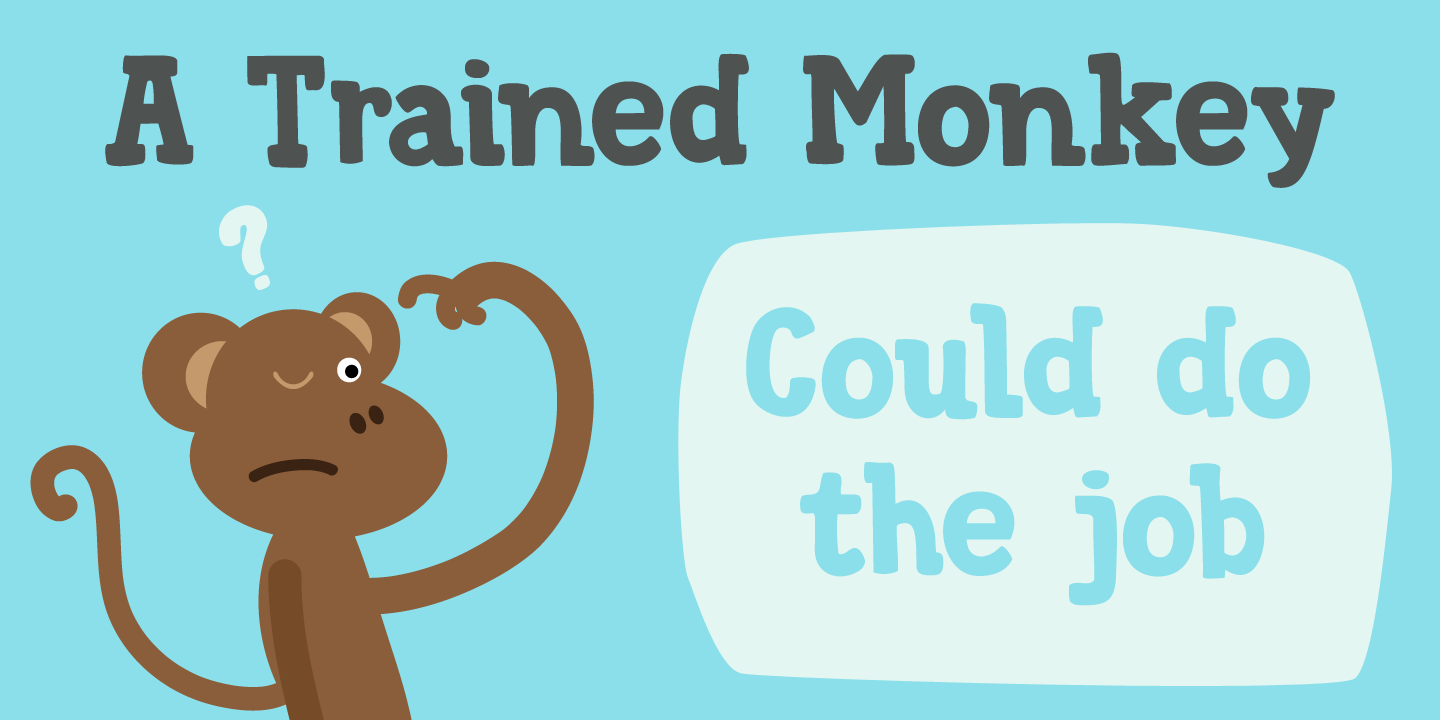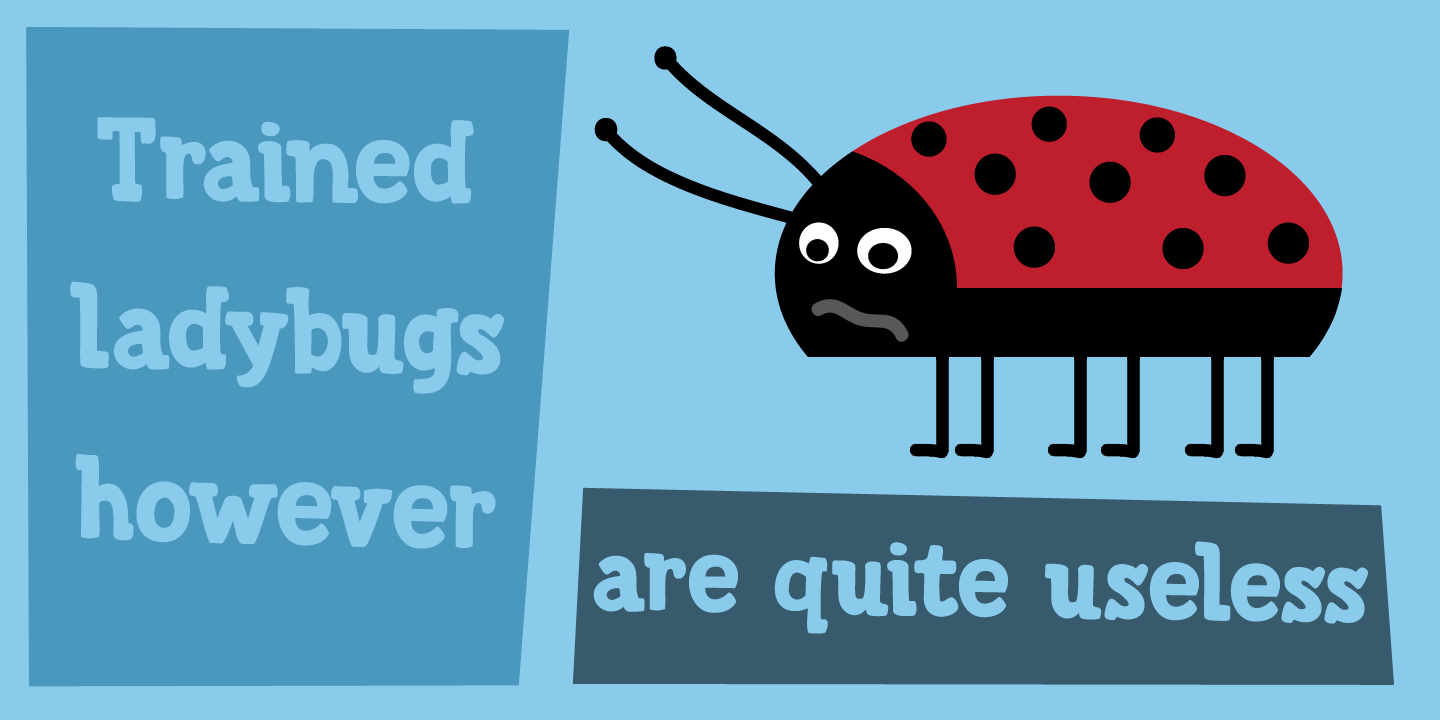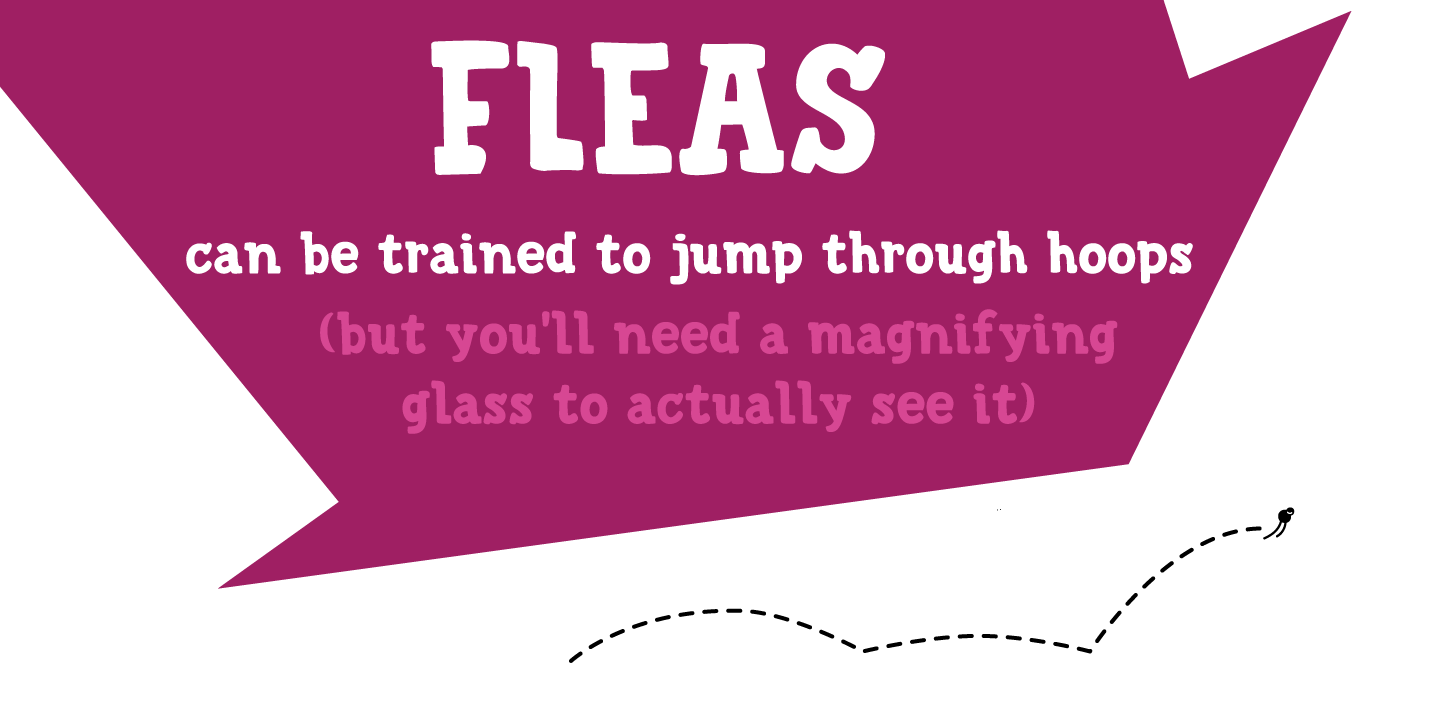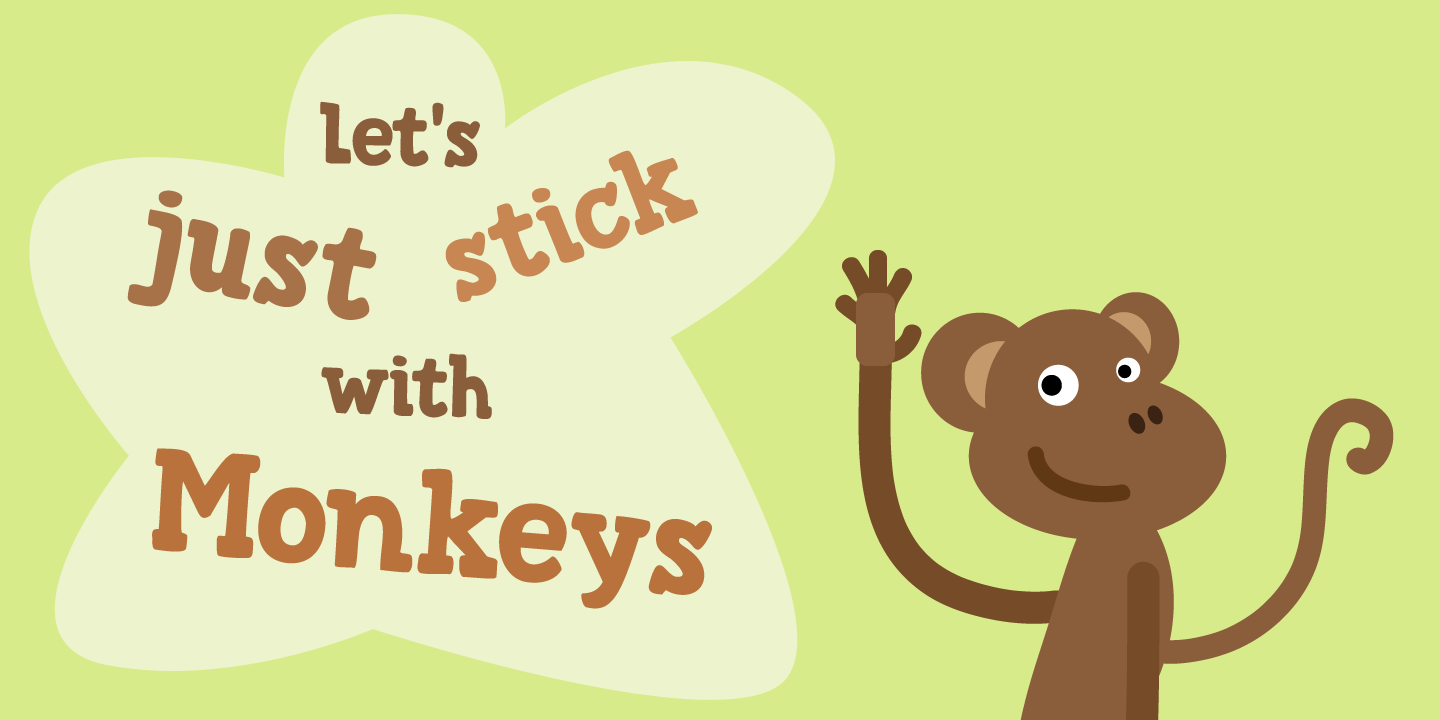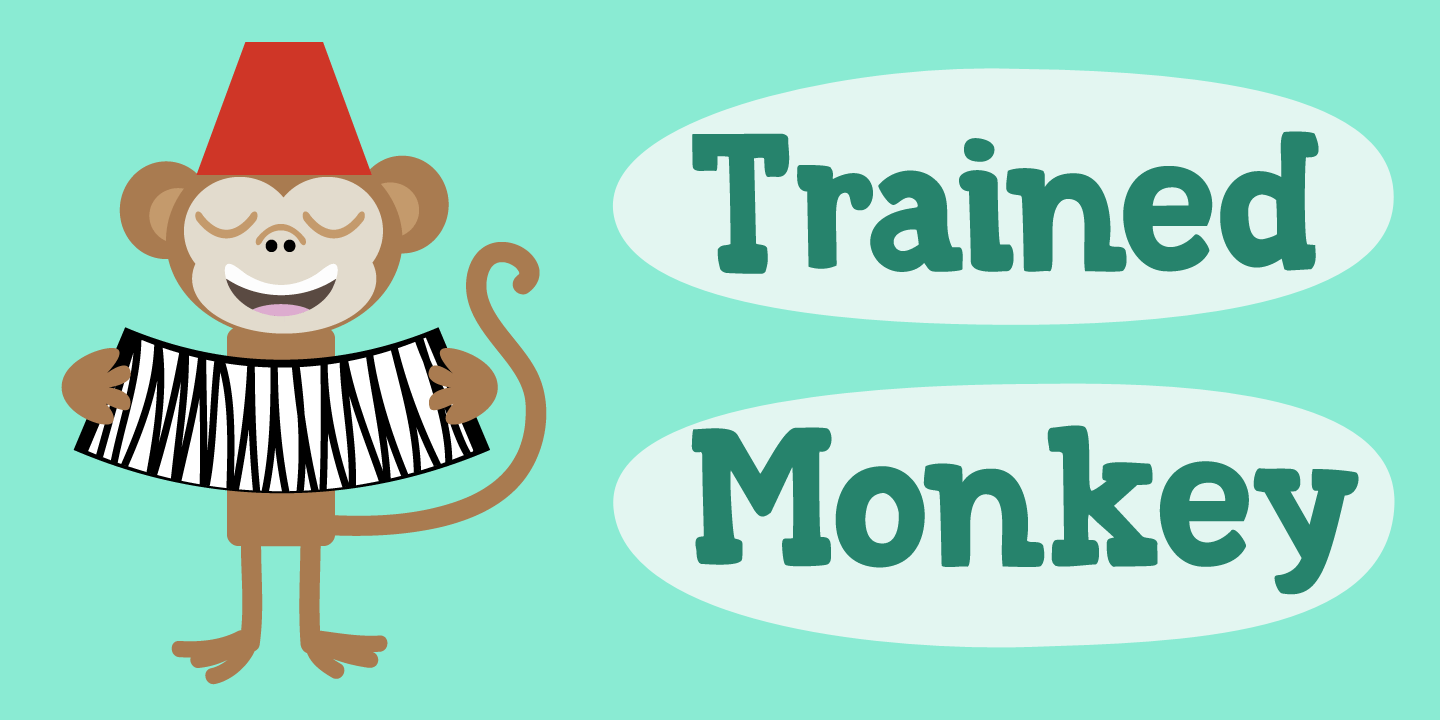
About Trained Monkey
Trained Monkey is a happy serif cartoon font. Use it for your book cover designs, posters, product packaging (may I suggest peanut butter?) and whatever else you may fancy. This monkey was made by hand, so the glyph edges are a bit rough and uneven -…